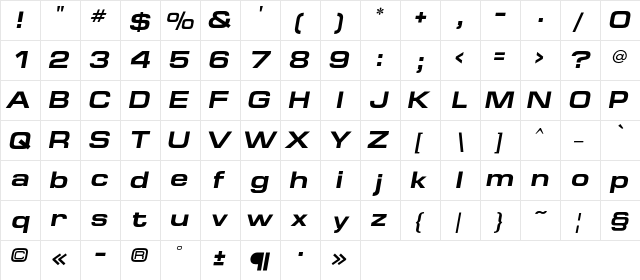
EuropeExtendedC Bold Italic Font Preview
Design Context for EuropeExtendedC Typeface
EuropeExtendedC takes a measured approach to typography — its balanced proportions and neutral character make it a reliable workhorse for both digital and print work. Its italic angle brings a sense of urgency and motion to the letterforms. The heavy weight commands attention and anchors typographic hierarchies.
Pro Tip: Try EuropeExtendedC for annotation and caption copy alongside an upright companion — the contrast in angle creates a dynamic but ordered typographic system.